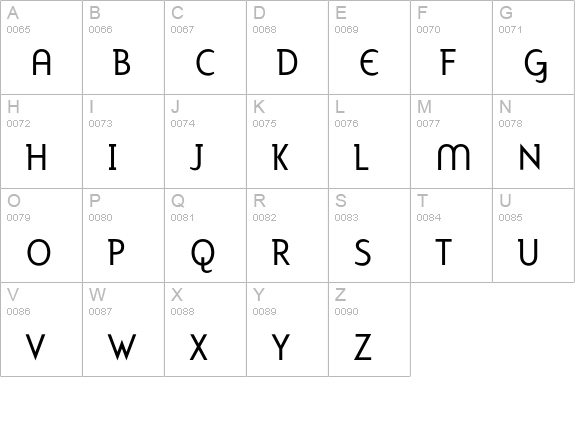
MercuryAlternative Font Details
MercuryAlternative is a modern and versatile font that brings a unique touch to any design project. With its sleek lines and contemporary look, this font is perfect for branding, advertising, and more. The clean and stylish appearance of MercuryAlternative makes it a great choice for both headings and body text, providing a professional and polished finish to your work. What's even better is that MercuryAlternative is completely free to download at FontsMarket.com, making it accessible to all designers and creatives looking to enhance their projects with a high-quality font. Whether you're working on a website, a poster, a logo, or any other creative endeavor, MercuryAlternative is sure to make a bold statement and elevate your design to the next level. Don't miss out on this fantastic font – download MercuryAlternative today and add a touch of sophistication to your work.